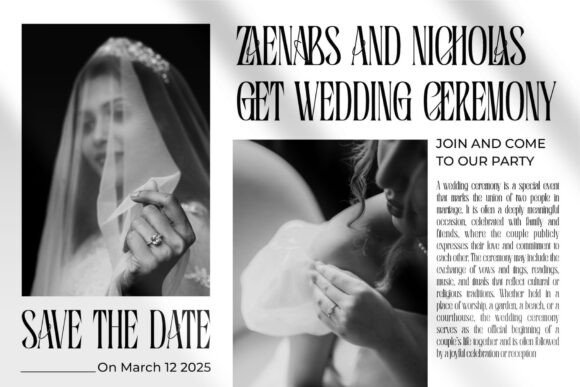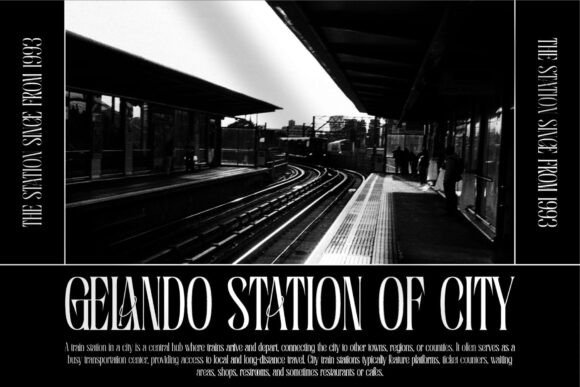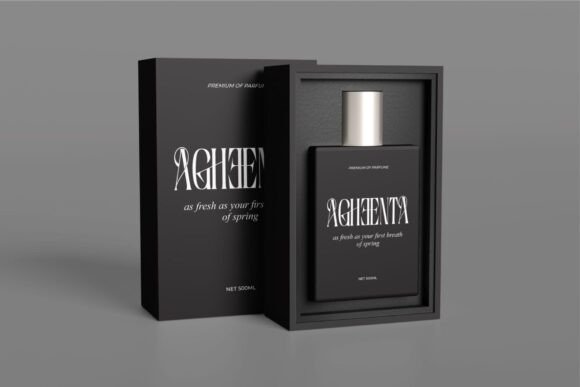
Agitafe Font
Agitale is a graceful serif font that blends traditional elegance with a modern attitude. Featuring high-contrast strokes, fluid alternates, and sophisticated ligatures, it’s perfect for elegant branding, logos, fashion layouts, and wedding designs.